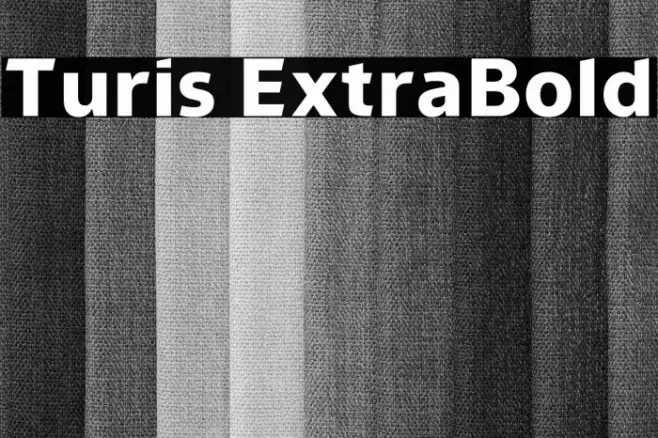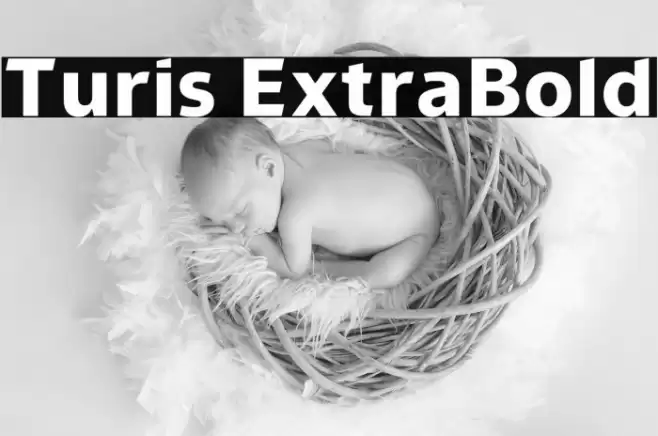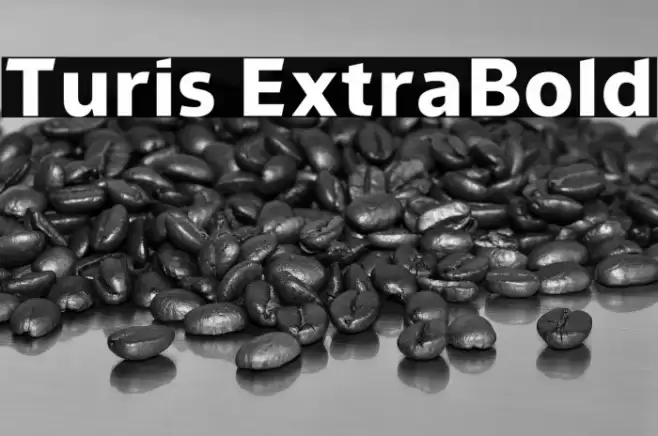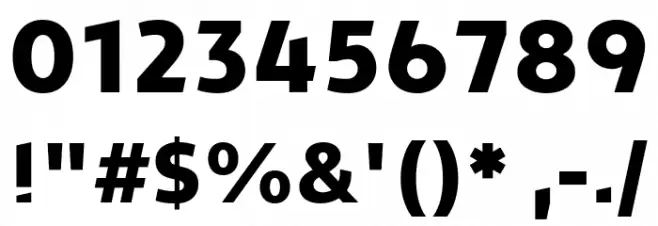
Turis ExtraBold Font
Turis ExtraBold Description
This font exhibits a strong and bold presence with its thick strokes and uniform weight. The characters are well-defined with a modern sans-serif style, providing a clean and professional look. The uppercase letters are robust and commanding, while the lowercase letters maintain a consistent and harmonious appearance. The numerals are clear and easy to read, making them suitable for various applications. The special characters are distinct and integrate seamlessly with the overall design, enhancing the font's versatility.
A bold, modern sans-serif font with strong, uniform strokes from Uncategorized fonts.
- Proposed Projects: Ideal for branding, advertising, headlines, and digital media where a strong visual impact is needed.
- Use Case: Headlines, Logos, Branding